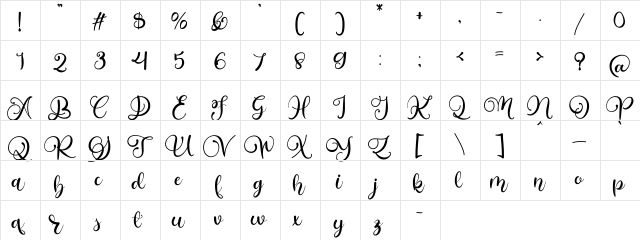
Alarate Script Personal Use Regular
| Foundry | FallenGraphic |
| Designer | Vava Aryanto |
Design Context for Alarate Script Personal Use Typeface
Alarate Script Personal Use brings a calligraphic fluidity to the page — its connecting strokes and expressive curves give it an unmistakably human quality.
Font Pairing: Combine Alarate Script Personal Use with a simple geometric sans for maximum contrast — the tension between flowing curves and clean structure is a classic typographic pairing.
Pro Tip: Use Alarate Script Personal Use for short runs of text — names, titles, or taglines. Extended body copy in script faces tires the eye quickly.